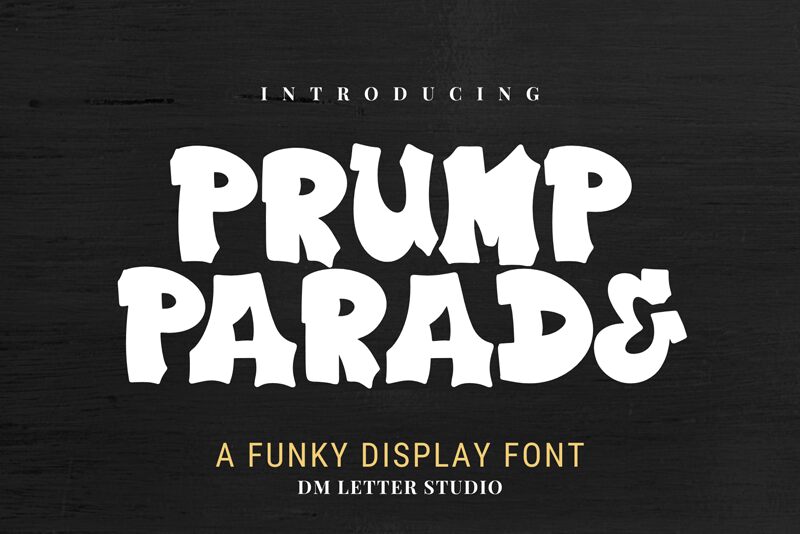
Plump Parade
Plump Parade font by DM Letter Studio - Dimas Prasetyo is a free groovy display typeface with letters that look like they’ve been puffed full of air and pressed into ink. Each character swells and dips with a bouncy, hand-drawn rhythm, creating chunky silhouettes that feel both retro and cartoonish. The tight, wavy spacing pulls words into bold, inky blobs of personality that instantly grab attention on the page or screen.
Using Plump Parade, you get a loud, playful voice that shines on posters, music event flyers, kids’ packaging, streetwear logos, stickers, and bold social graphics. This free font works beautifully when you set it large and let the plump curves breathe. For a clean contrast, pair Plump Parade with a slim, simple sans serif for body copy or small taglines underneath those big, juicy headlines.